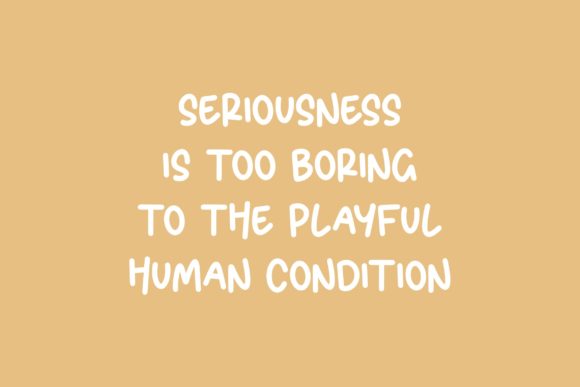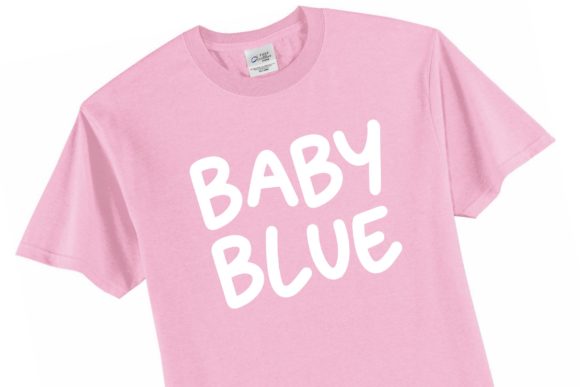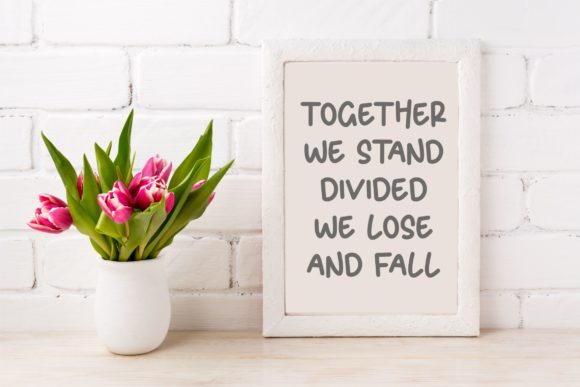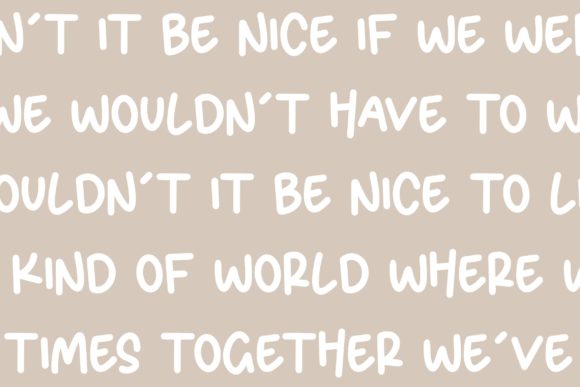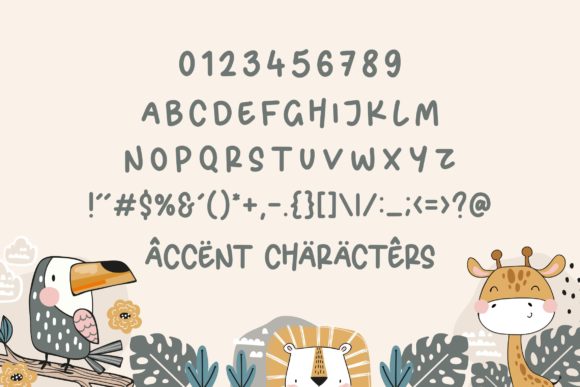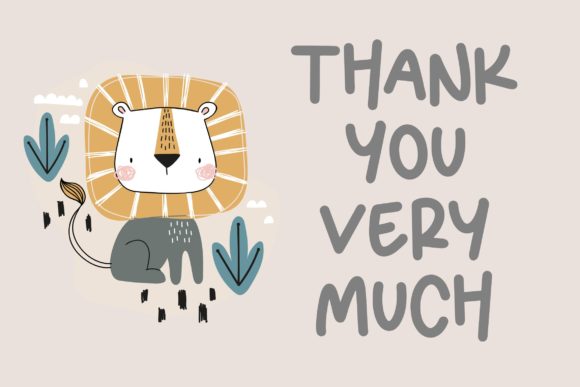
Introducing Break Bone Font: The Cute and Quirky Display Font You Need
Are you tired of using the same old fonts in your designs? Do you want to add a touch of personality and whimsy to your creative projects? Look no further than Break Bone Font, a friendly and versatile display font that’s sure to make your designs stand out.
What is Break Bone Font?
Break Bone Font is a unique and eye-catching display font that’s perfect for designers and crafters looking to add some fun and personality to their work. Its cute and quirky style makes it incredibly versatile, fitting a wide range of designs and projects. Whether you’re creating a logo, poster, or social media graphic, Break Bone Font is sure to make your design pop.
Characteristics of Break Bone Font
So, what makes Break Bone Font so special? Here are just a few of its key characteristics:
- Cute and Quirky: Break Bone Font has a playful and charming style that’s sure to capture attention.
- Versatile: This font is incredibly versatile, fitting a wide range of designs and projects.
- Display Font: Break Bone Font is a display font, making it perfect for headlines, titles, and other attention-grabbing elements.
- Easy to Read: Despite its quirky style, Break Bone Font is easy to read, making it perfect for use in a variety of contexts.
Uses for Break Bone Font
So, what can you use Break Bone Font for? The possibilities are endless! Here are just a few ideas to get you started:
- Logos and Branding: Use Break Bone Font to create a unique and memorable logo for your business or brand.
- Posters and Flyers: Add some personality to your posters and flyers with Break Bone Font.
- Social Media Graphics: Use Break Bone Font to create eye-catching social media graphics that will help your posts stand out.
- Invitations and Cards: Add a touch of whimsy to your invitations and cards with Break Bone Font.
- Packaging: Use Break Bone Font to add some personality to your product packaging.
Tips for Using Break Bone Font
Here are a few tips for getting the most out of Break Bone Font:
- Use it as a Headline Font: Break Bone Font is perfect for use as a headline font, so try using it to grab attention and draw the eye.
- Experiment with Colors: Break Bone Font looks great in a variety of colors, so don’t be afraid to experiment and find the perfect hue for your design.
- Pair it with Other Fonts: Try pairing Break Bone Font with other fonts to create a unique and interesting contrast.
- Use it to Add Personality: Break Bone Font is all about adding personality to your designs, so don’t be afraid to get creative and have fun with it!
In conclusion, Break Bone Font is a cute and quirky display font that’s perfect for designers and crafters looking to add some personality to their work. Its versatile style makes it fitting for a wide range of designs and projects, and its easy-to-read design makes it perfect for use in a variety of contexts. Whether you’re creating a logo, poster, or social media graphic, Break Bone Font is sure to make your design stand out. So why not give it a try and see the difference it can make?